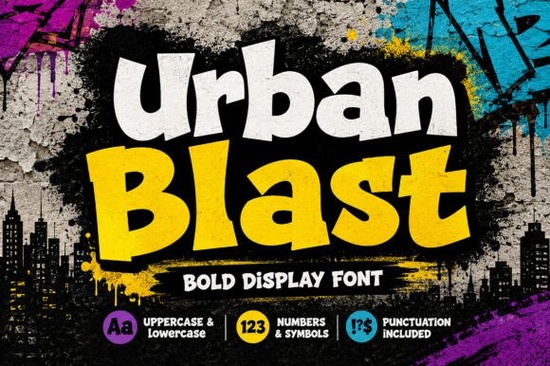
If you're looking for a bold, expressive display font that brings street energy and playful attitude to your projects, Urban Blast Font fits the bill. It’s not just another thick sans serif it’s shaped by graffiti art, comic book lettering, and urban visual culture. That means chunky letterforms, subtle bounce in the curves, and uneven edges that feel hand-drawn but still highly legible at larger sizes. Designers who work with posters, t-shirts, social media banners, or kids’ activity sheets often find it refreshingly direct no overcomplication, just strong presence.
When does Urban Blast work best?
This font shines where impact matters more than subtlety. Think of a summer festival poster shouting “Live Music Tonight!” or a limited-run hoodie design with a single punchy word like “BOLD” or “FRESH.” It’s also surprisingly versatile for branding elements like a logo lockup for a skate shop, a local coffee roaster with an edgy vibe, or even playful packaging for organic snacks aimed at younger families. Because its rhythm feels energetic but not chaotic, it holds up well across print and digital formats without needing heavy kerning adjustments.
That said, avoid using Urban Blast for body text, long paragraphs, or small labels (under 24pt). Its personality comes from scale and contrast so pair it with a clean, neutral sans serif (like Montserrat or Inter) for supporting text. You’ll get balance: one voice that grabs attention, another that quietly delivers information.
How is it different from other bold display fonts?
Unlike rigid geometric display fonts, Urban Blast has gentle irregularities slight variations in stroke weight, soft corners, and uneven baseline alignment that mimic hand-painted lettering. Compare it to Digital Match Font, which leans into retro tech aesthetics with pixel-inspired shapes, or Sportex Font, built for athletic branding with sharp angles and aggressive spacing. Varsity Texture Font adds grain and wear for vintage college appeal, while Belindra Font offers elegant script contrast great when you want warmth instead of edge.
If you’re curating a font collection for diverse client needs, having Urban Blast Font alongside those gives you coverage across moods: energetic, nostalgic, sporty, textured, or graceful.
Who uses this font regularly?
- Print-on-demand sellers who design trending t-shirt graphics especially around holidays, music events, or youth culture themes.
- Small business owners launching a new product line or rebranding with a more confident, approachable tone.
- Crafters making custom party banners, chalkboard-style signs, or printable classroom posters.
- Design students and hobbyists building portfolios with real-world examples: gig posters, mockup packaging, Instagram story templates.
One designer we spoke with used Urban Blast across three Etsy listings a set of motivational quote prints, a series of kids’ coloring pages themed around city adventures, and a batch of enamel pin designs. She noted how consistently it translated across mediums: “It looked great printed on matte paper, scaled down for mobile previews, and even held up as a tiny SVG icon on a website favicon generator.”
Remember: bold display fonts like this work best when they have room to breathe. Give them generous letter-spacing (tracking), generous line height if stacked, and high-contrast backgrounds think black text on cream, white on deep navy, or bright yellow on charcoal gray.
Quick checklist before using Urban Blast Font:
• Is the text short and impactful? (Ideal: 1–5 words)
• Will it appear at 36pt or larger in final output?
• Does your supporting typeface offer enough contrast in weight and style?
• Have you tested it on your intended background color for readability?